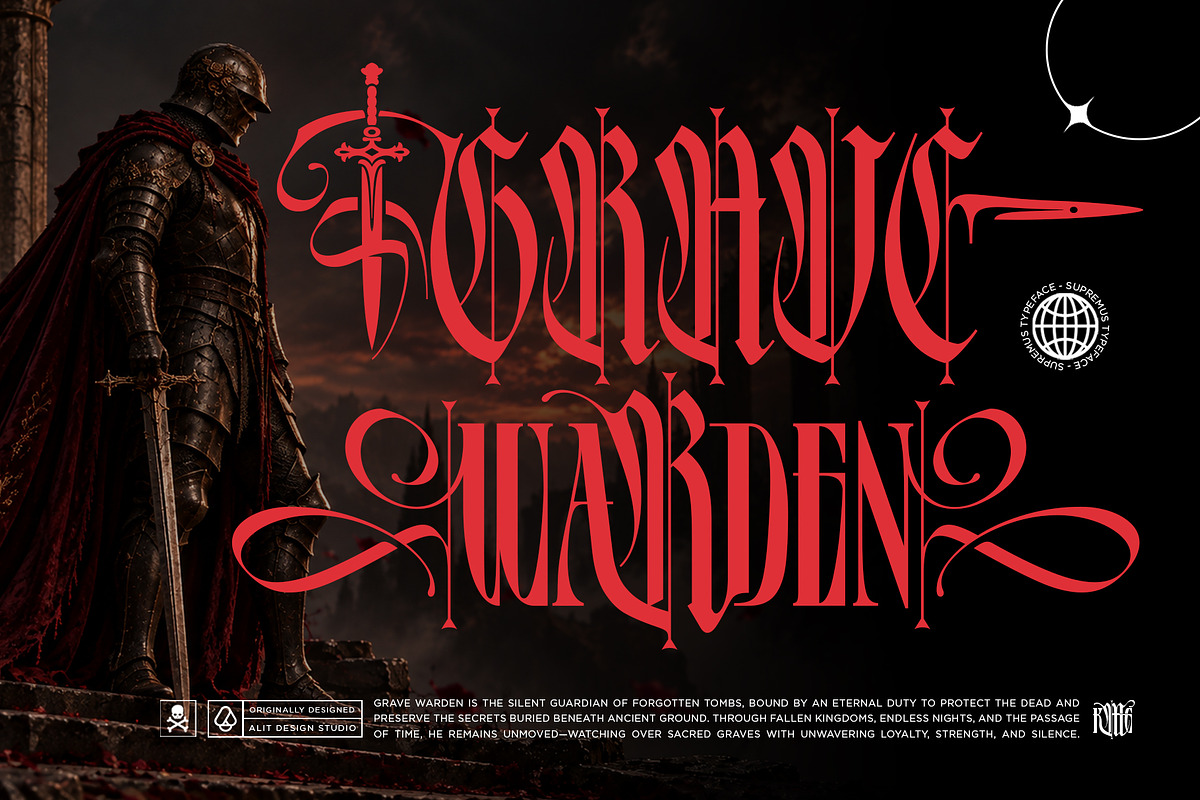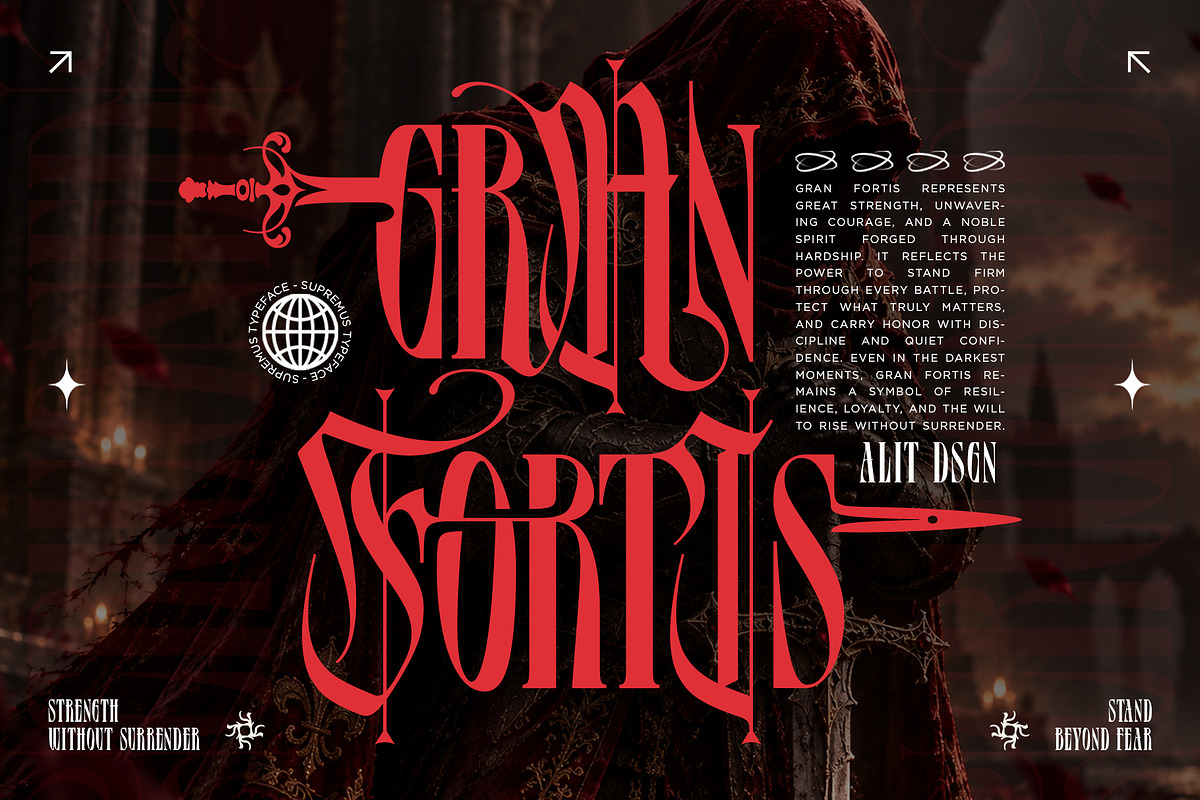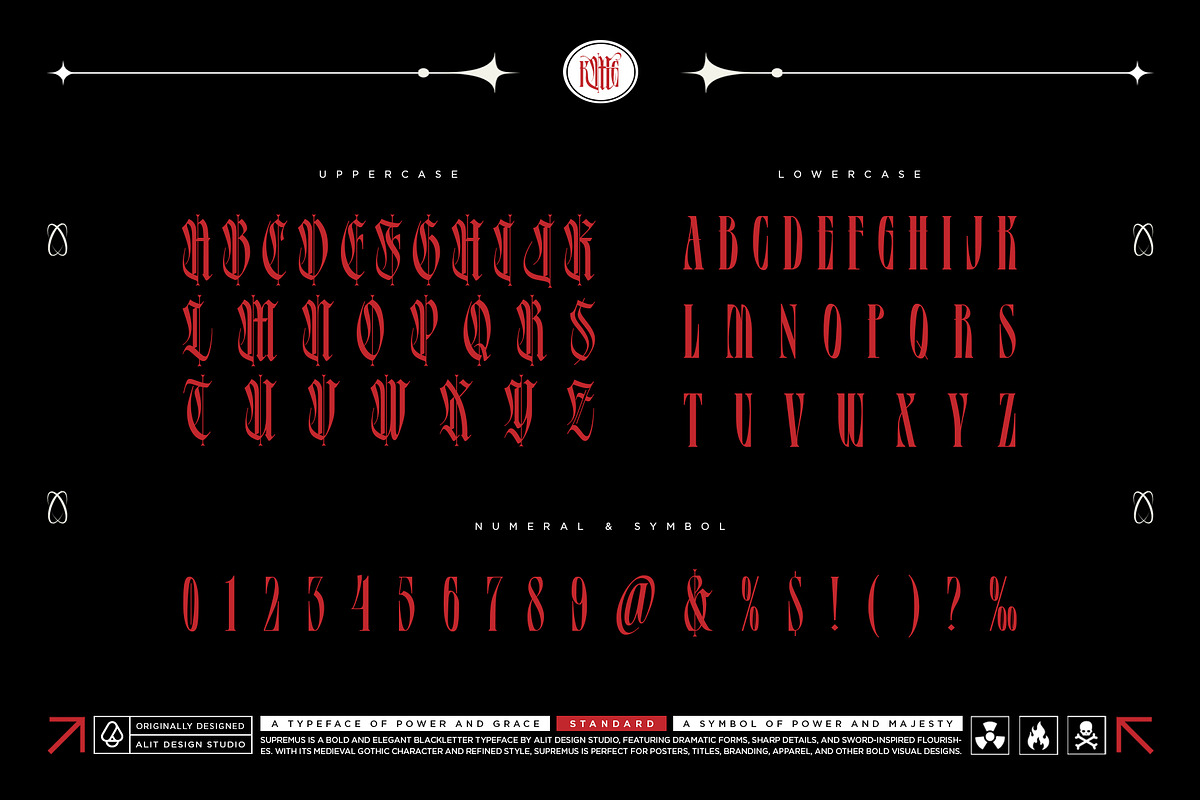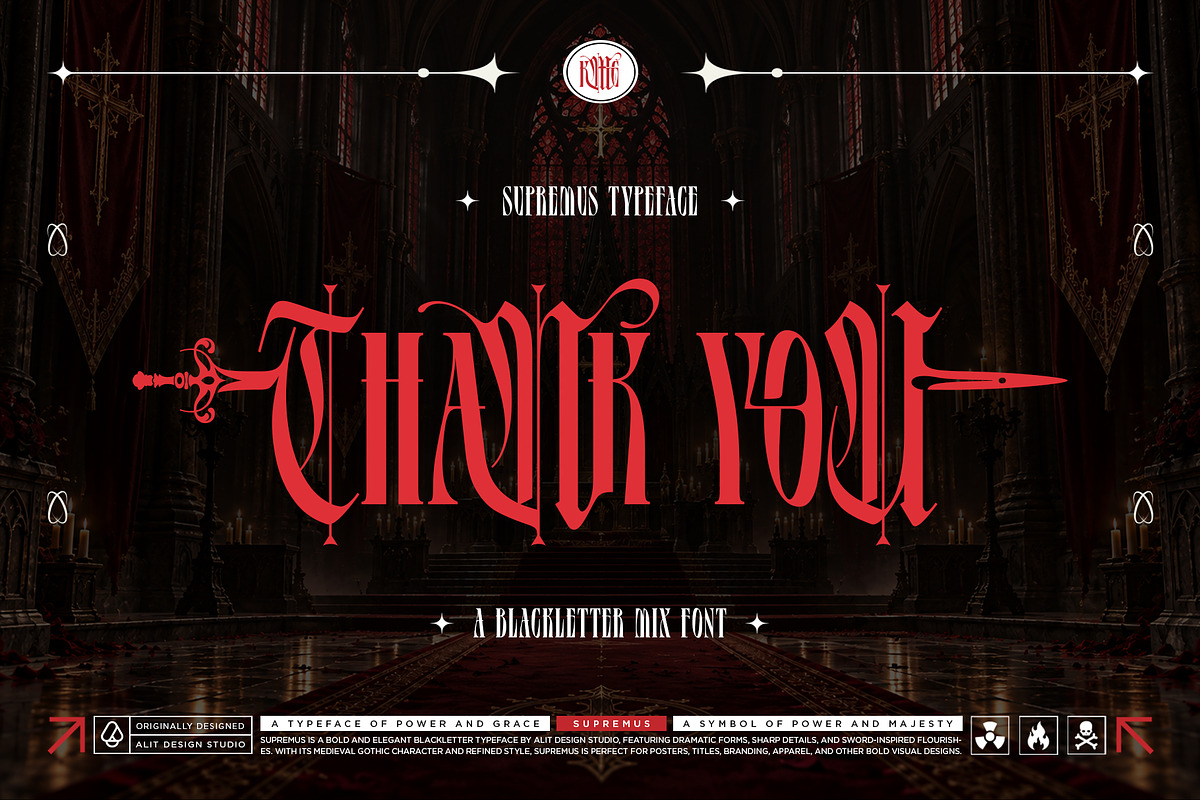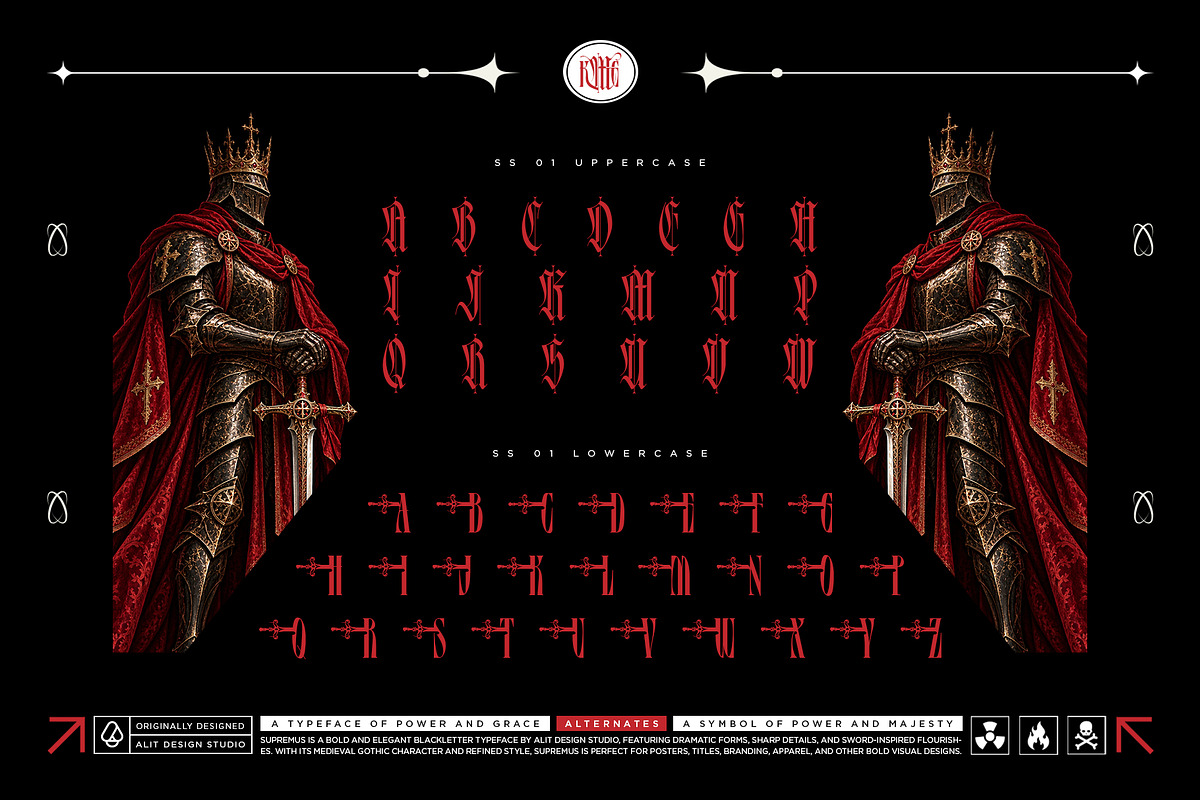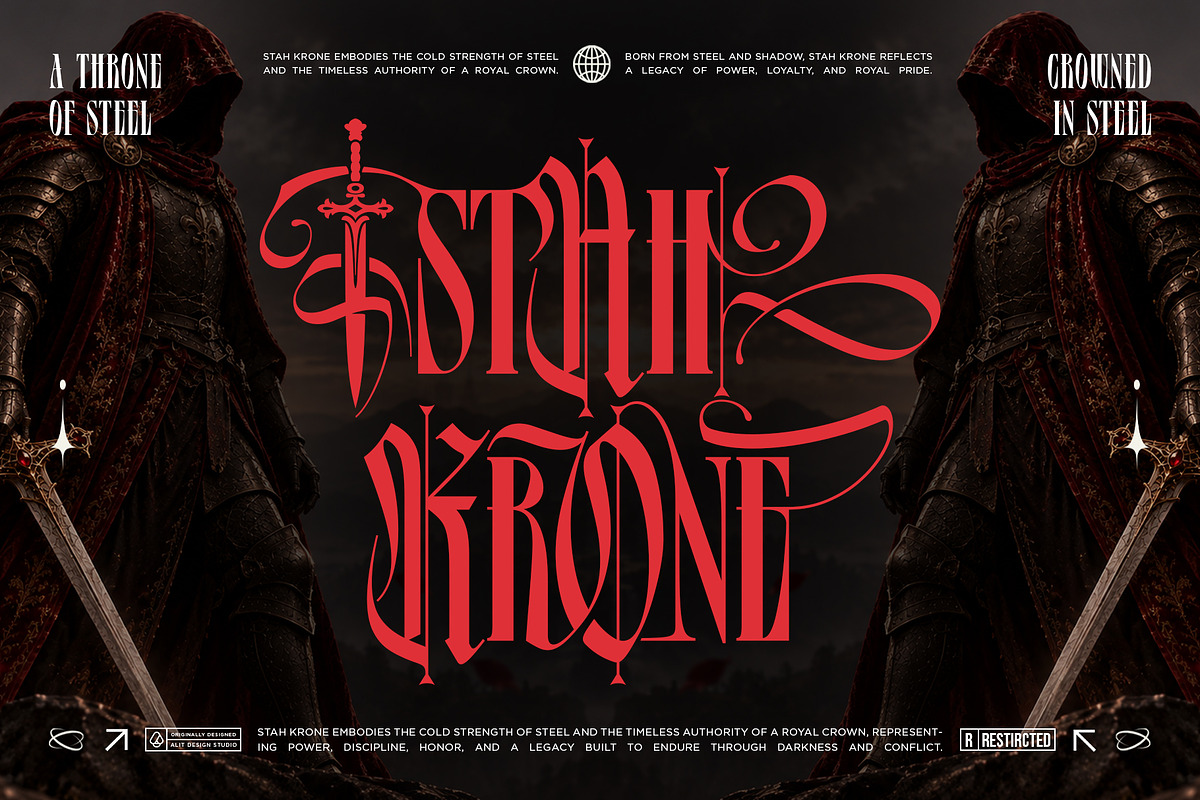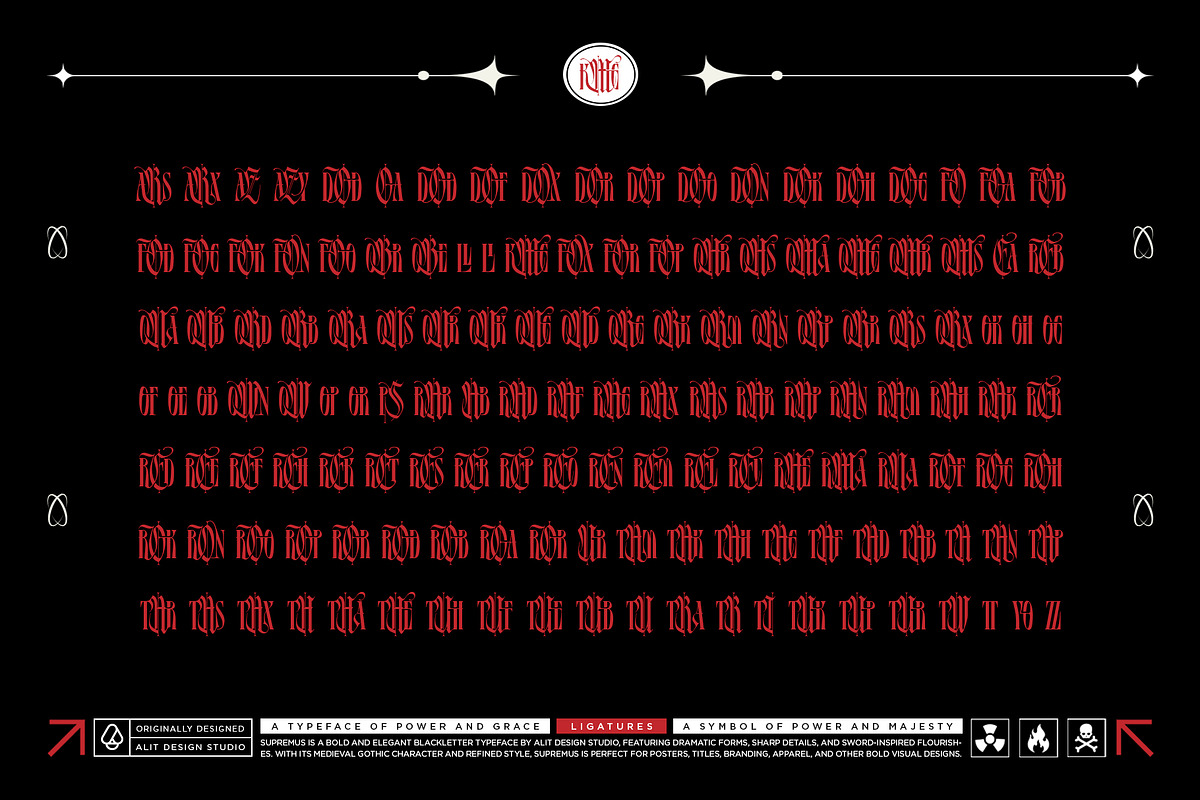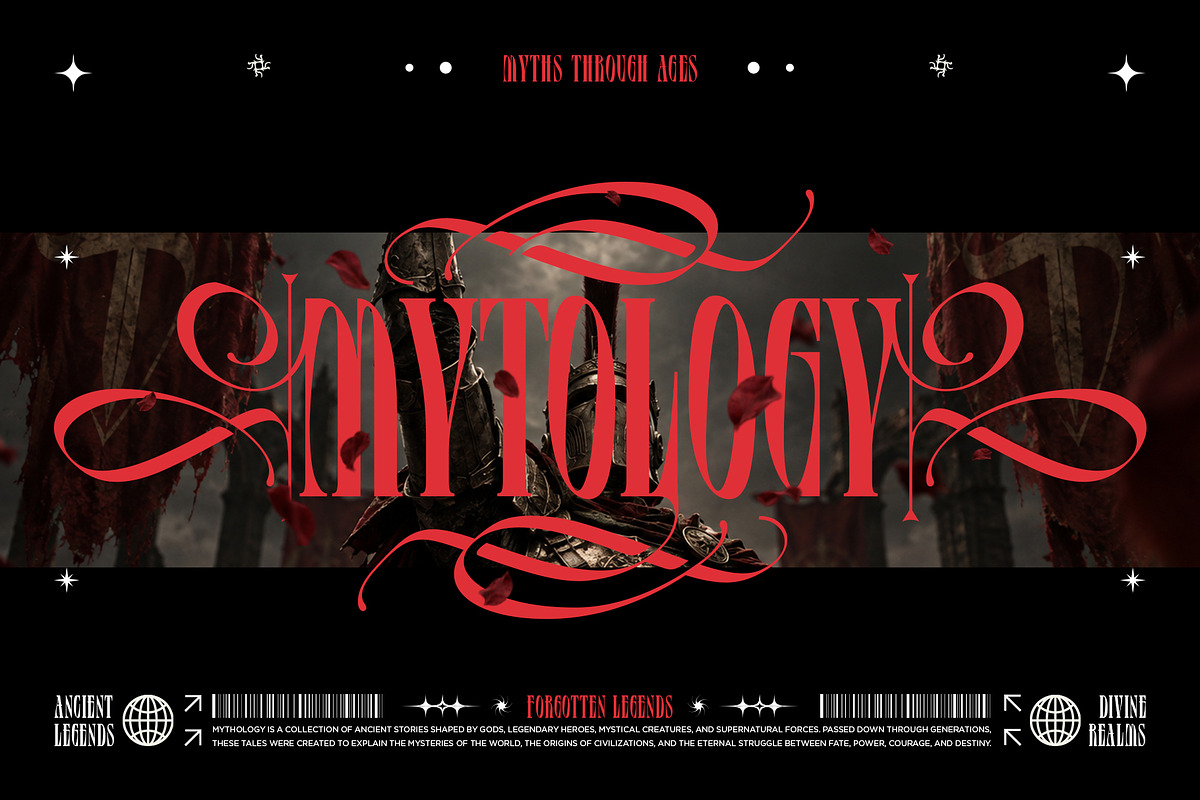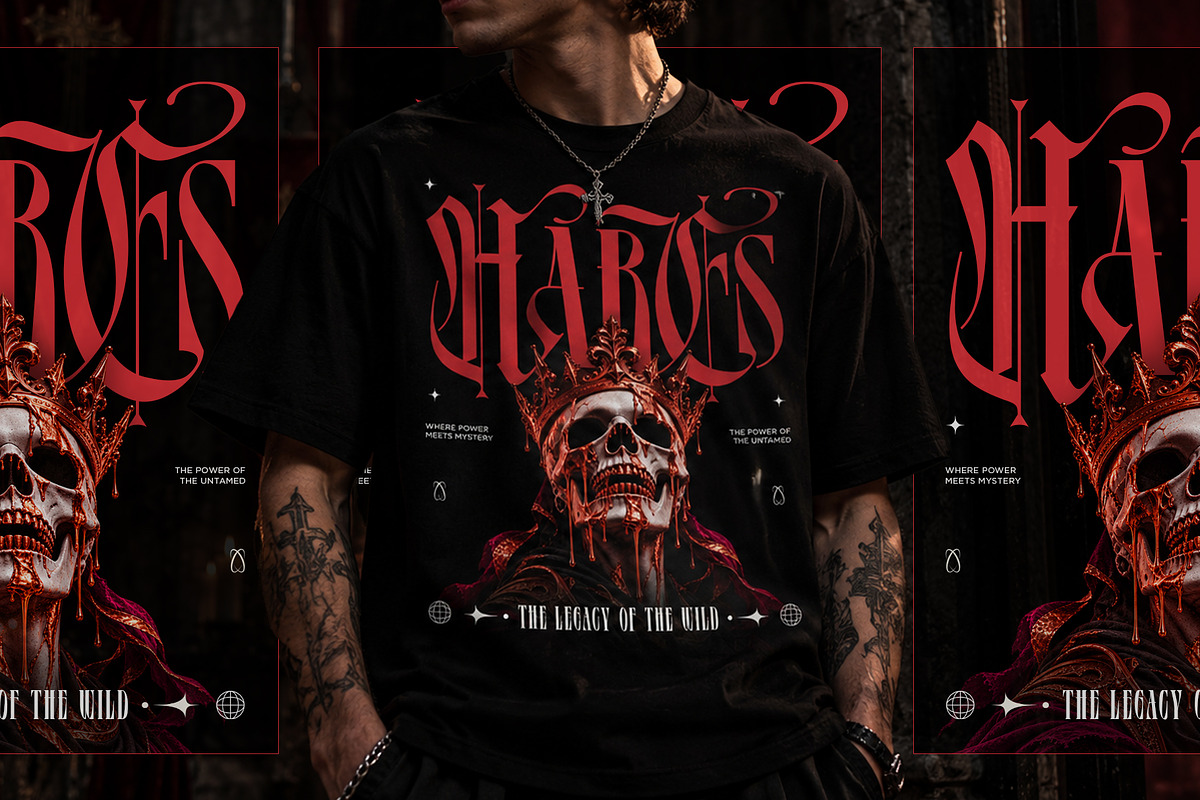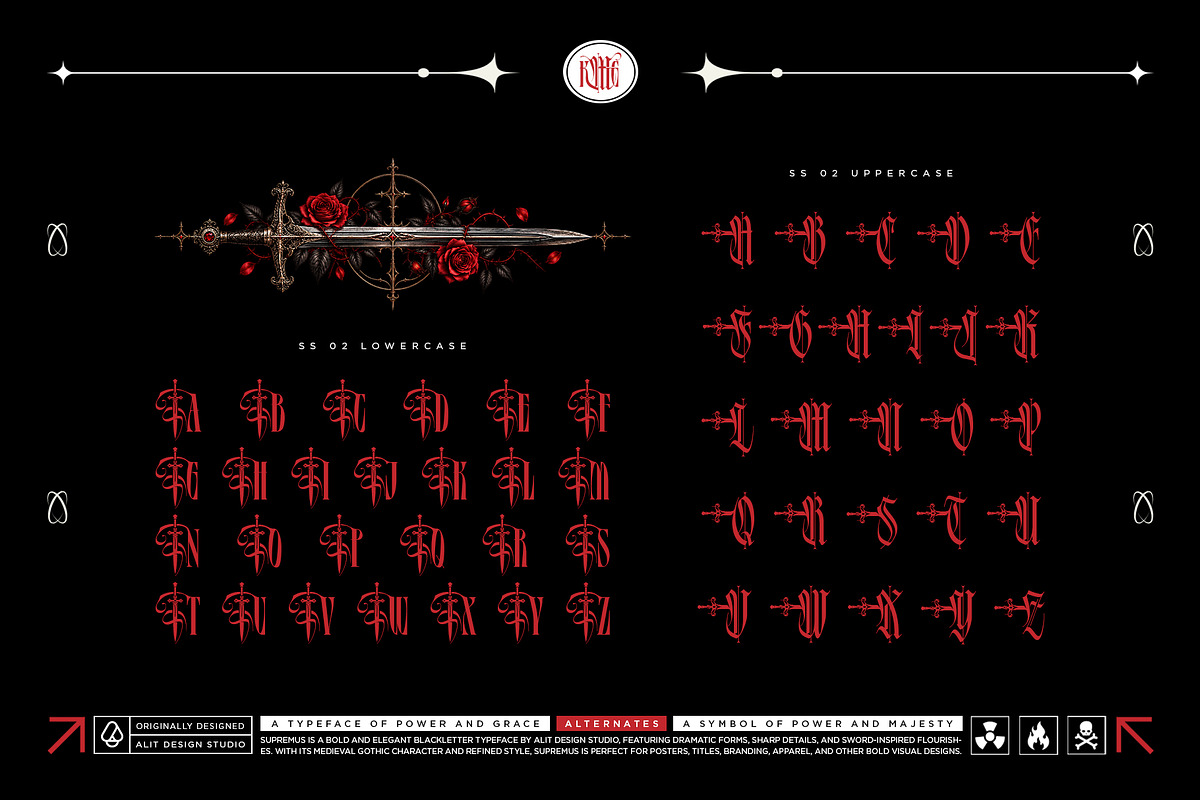
Supremus Typeface
Introducing Supremus Typeface – A Symbol of Power and Majesty
Step into a realm of dark fantasy and medieval elegance with Supremus, a bold and masterful blackletter typeface crafted by Alit Design Studio. Forged in shadow and designed for ultimate visual impact, Supremus features dramatic letterforms, elongated strokes, and distinctive sword-like flourishes that immediately command attention.
Combining traditional gothic character with a highly refined, luxurious aesthetic, this typeface is built for projects that demand a powerful yet sophisticated identity. Whether you are designing epic movie titles, striking streetwear apparel, heavy metal album covers, or commanding brand logos, Supremus delivers strength without surrender.
Endless Creative Possibilities
With a massive library of 1132 glyphs, Supremus gives you absolute control over your typography. Explore a vast array of Stylistic Alternates (SS01 - SS08) featuring sharp ornamental details, thorny accents, and weapon-inspired swashes to beautifully customize your text. Coupled with an extensive set of custom ligatures, your typography will flow seamlessly, giving your designs a flawless, hand-lettered finish.
Apparel & Merchandise Design
Album Artwork & Gig Posters
Book Covers & Movie Titles
Tattoo Studio Branding
Vintage, Dark & Gothic Logo Design
Beverage & Product Packaging
Uppercase & Lowercase Characters
Numerals, Punctuation & Symbols
1132 Total Glyphs for deep customization
Stylistic Sets (SS01 - SS08) with intricate, sword-inspired flourishes
Extensive Ligatures for smooth typographic flow
Comprehensive Multilingual Support
Embrace the legacy of the wild. Stand beyond fear with Supremus Typeface.